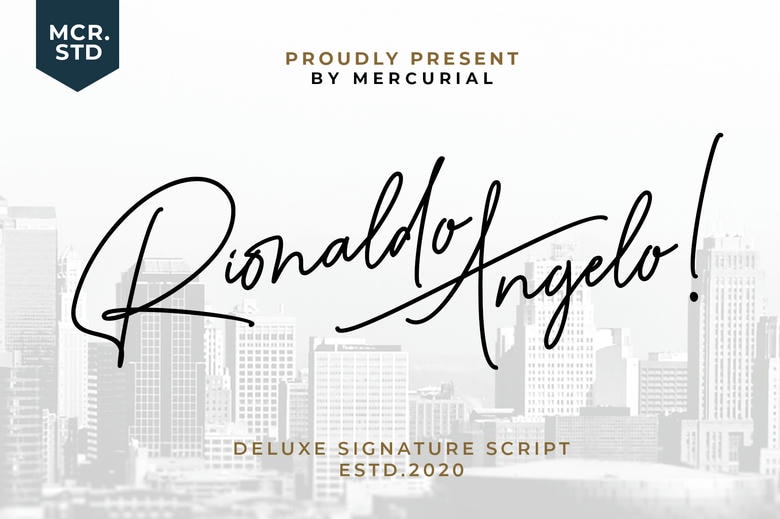
Rionaldo Angelo Font
Rionaldo Angelo provides only one particularly excellent handwritten font which is elegance in its simplest detail. It still strongly preserves the calligraphic looks it always had but, at the same time, it seems modern and not cliché at all. This versatility will attract all manner of crafty ideas ranging from letterheads and titles to stationery.
Rionaldo Angelo Signature Script  Font